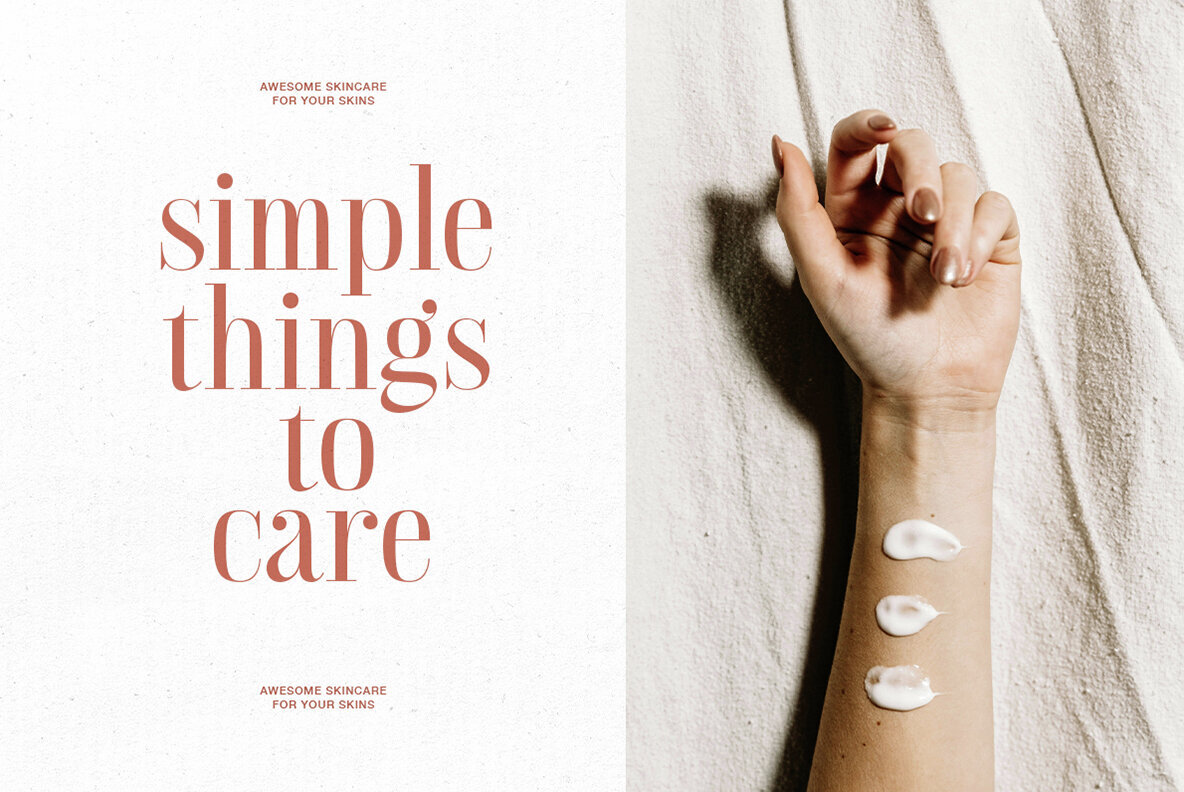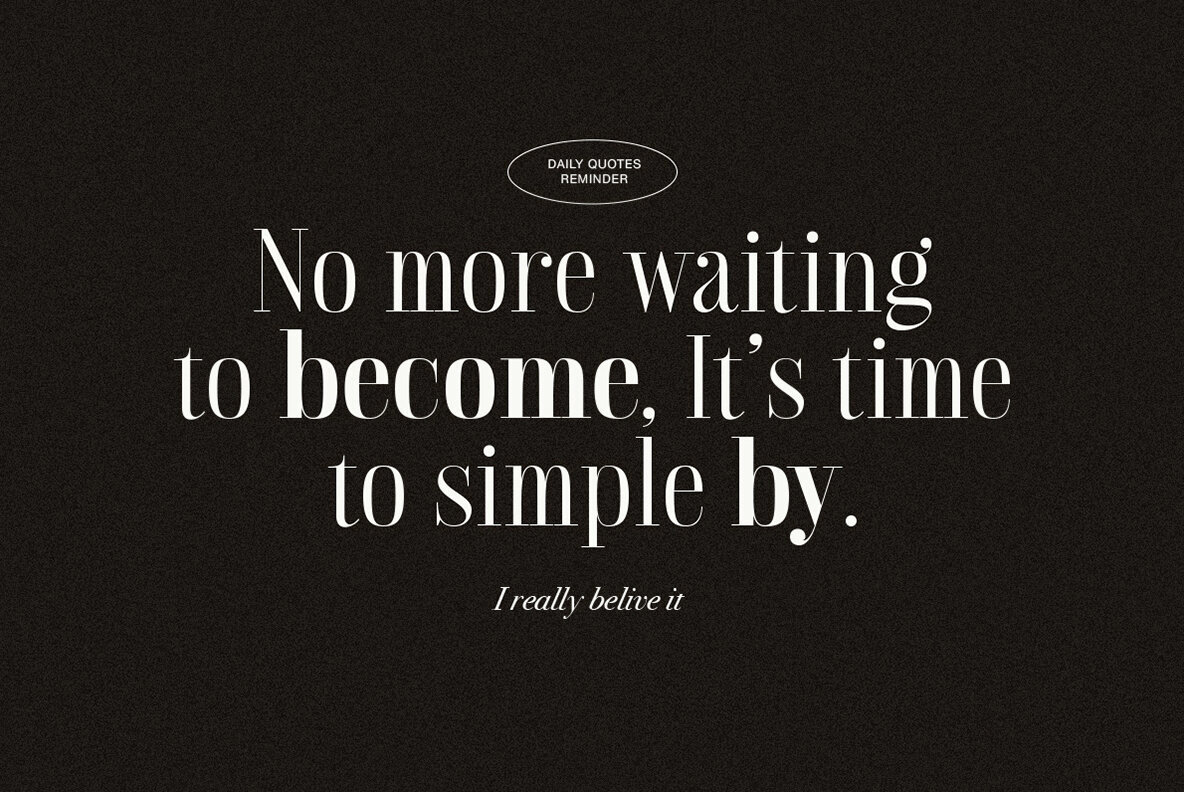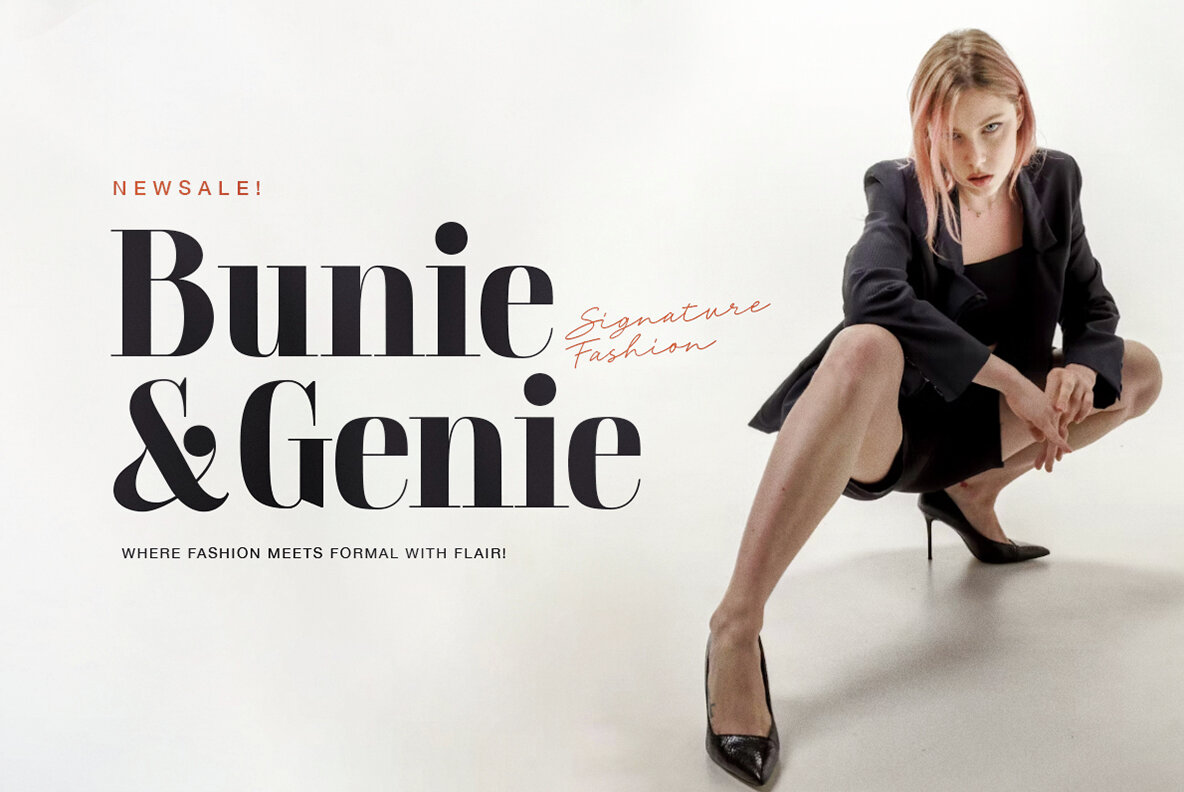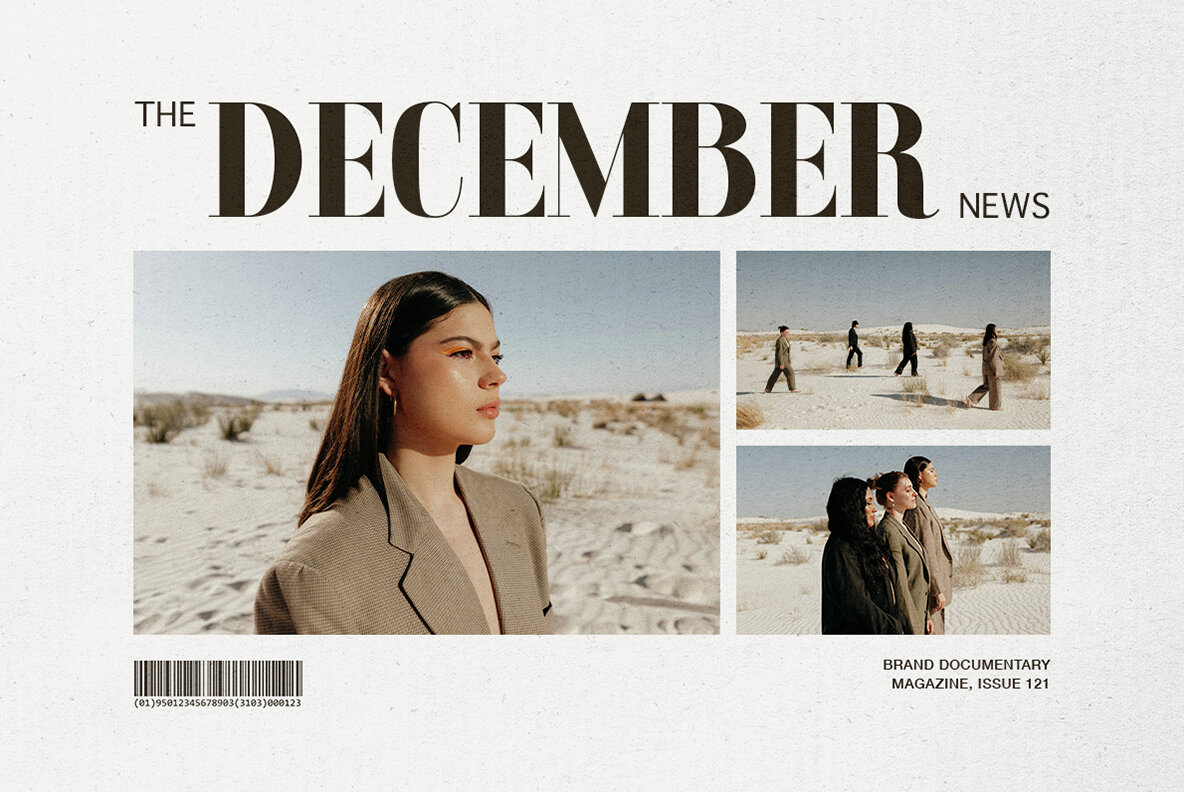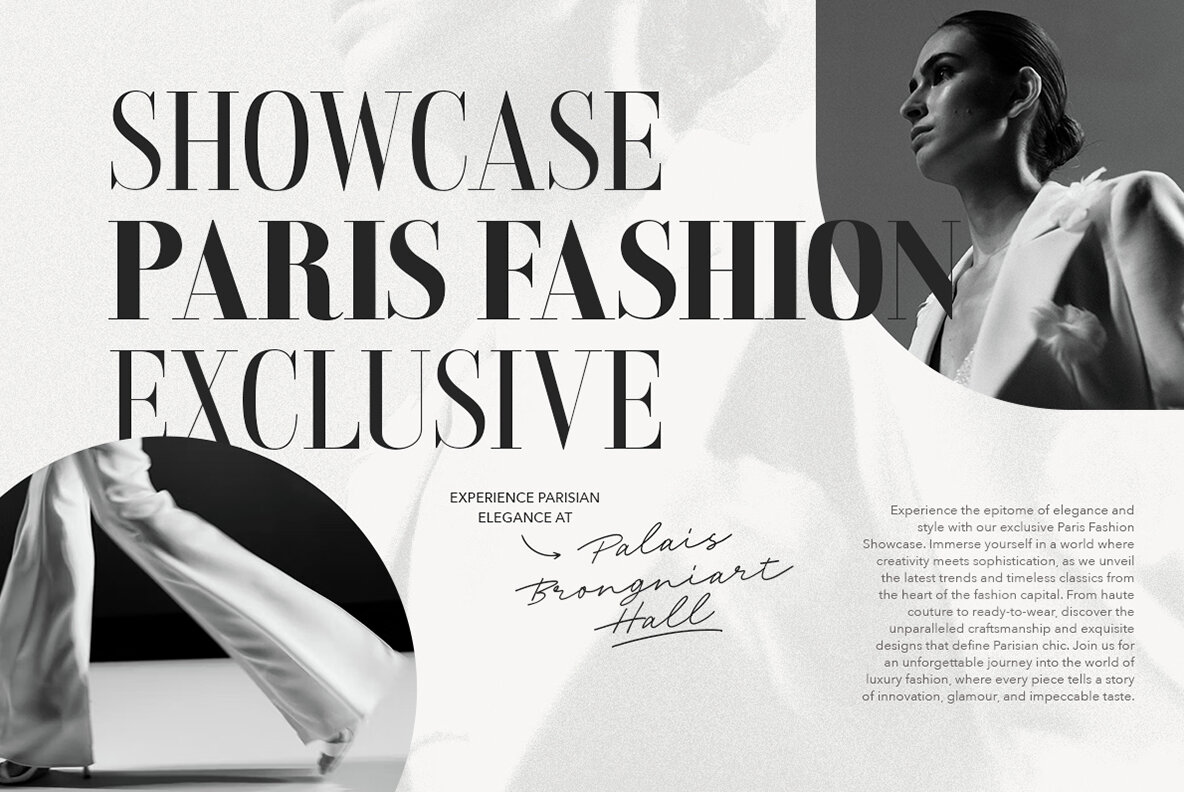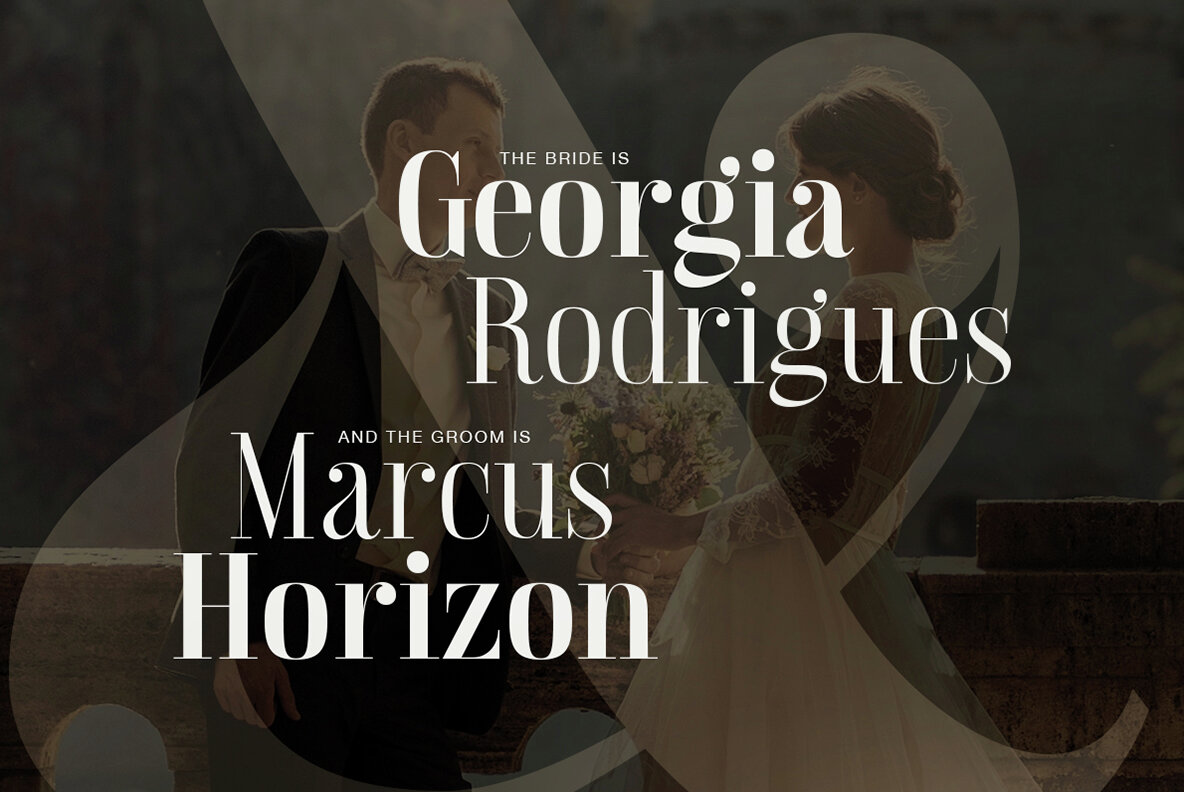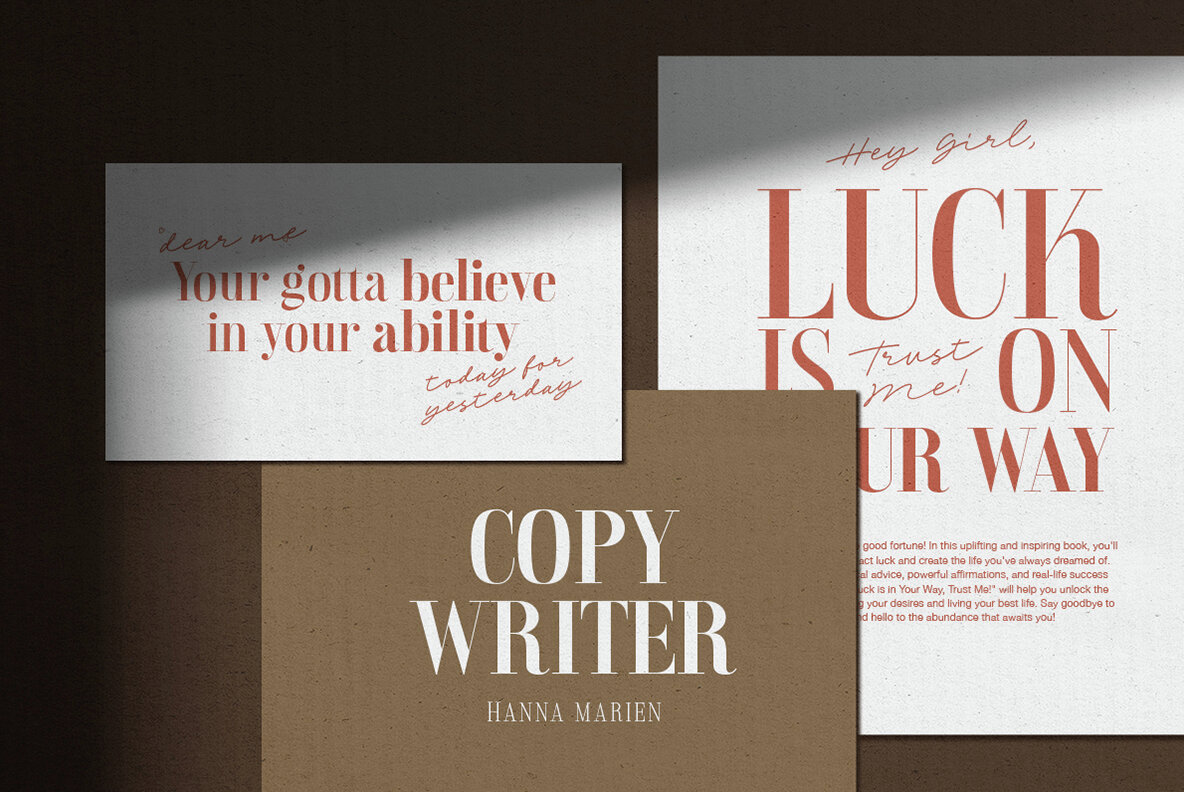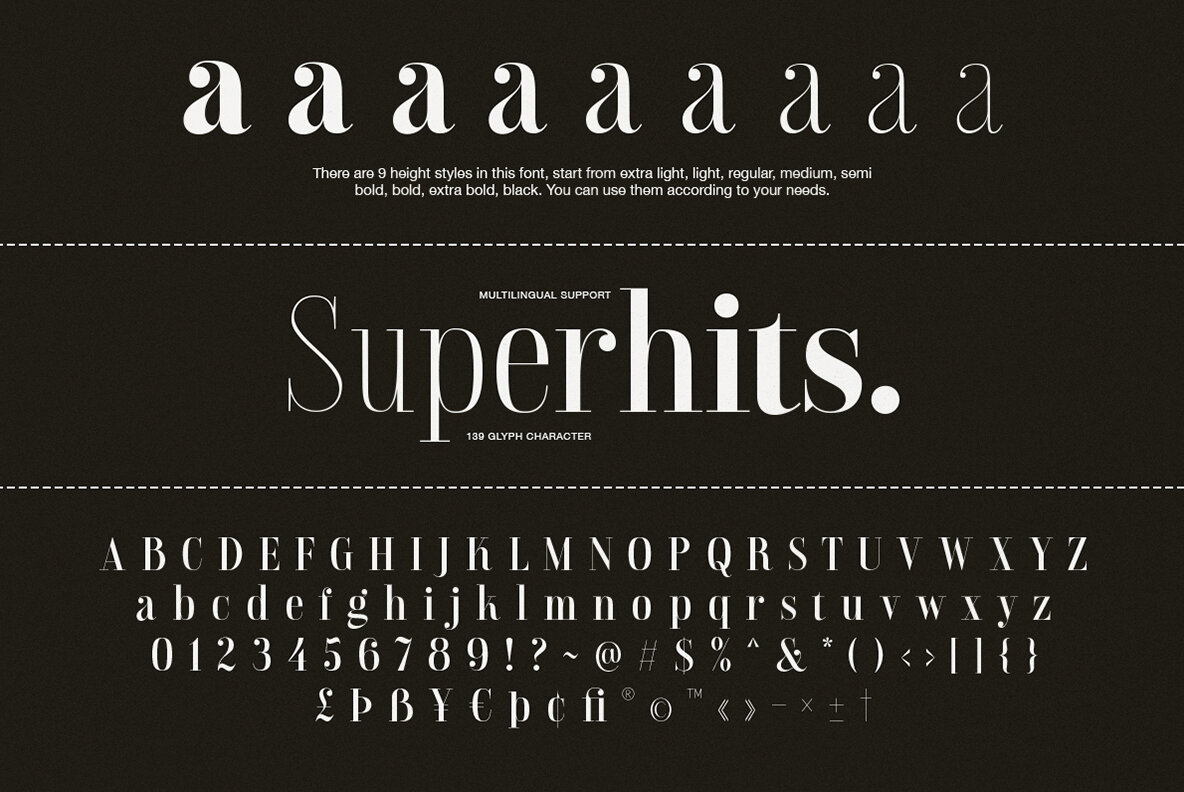
Superhits Font
Superhits is a classic serif font that exudes timeless elegance and sophistication. Characterized by its high contrast between thick vertical and thin horizontal strokes, this didot-style typeface features flat hairline serifs and a strong geometric structure. Its refined curves and tapered strokes render it ideal for display purposes, particularly in fashion, luxury branding, editorial design, and formal invitations.
This versatile font family offers eight weights, ranging from Thin to Black, providing ample flexibility for your project requirements. Additionally, Superhits supports multiple languages, ensuring accessibility and usability for a wide audience. Enhance your design projects with the refined and sophisticated aesthetic of Superhits.